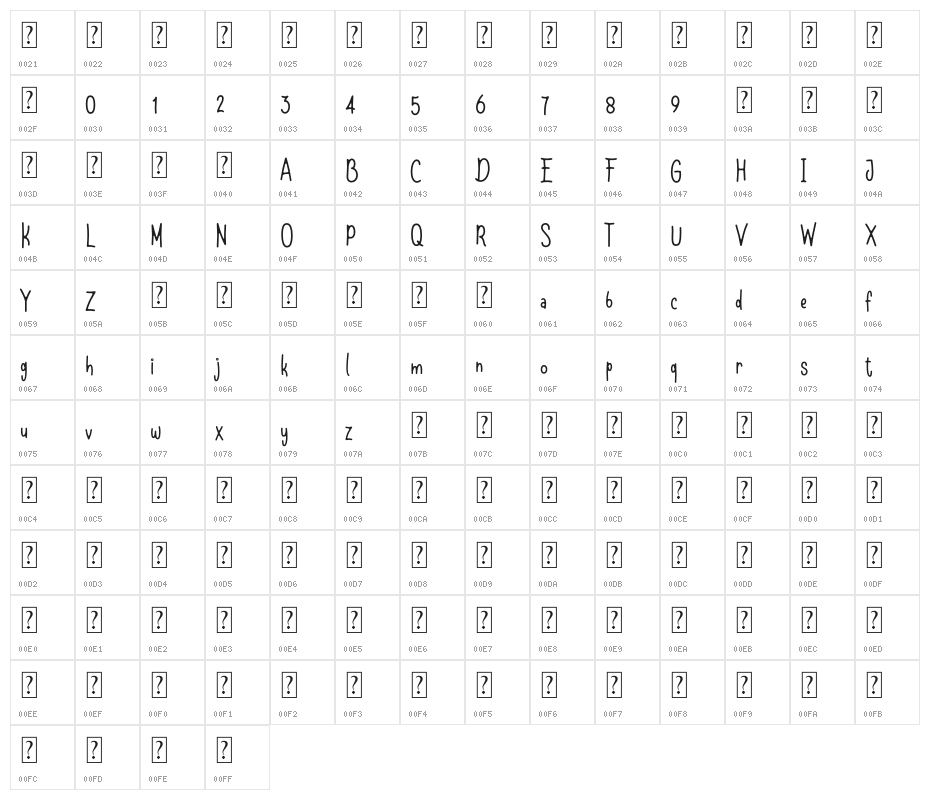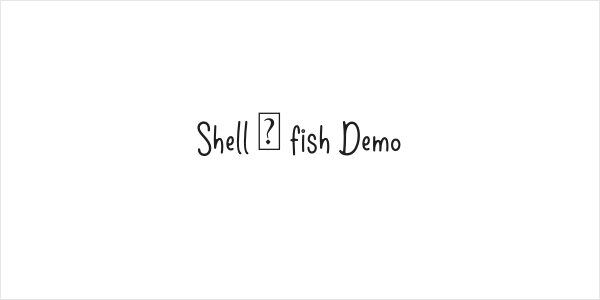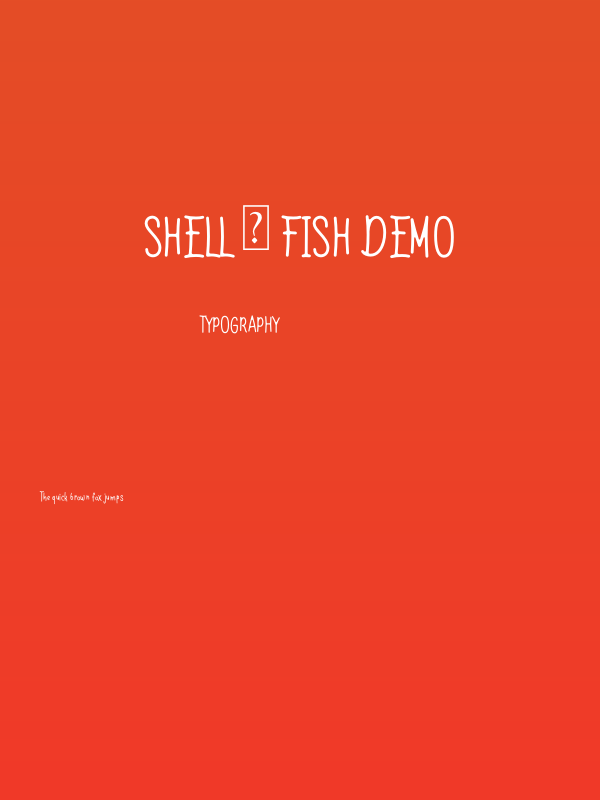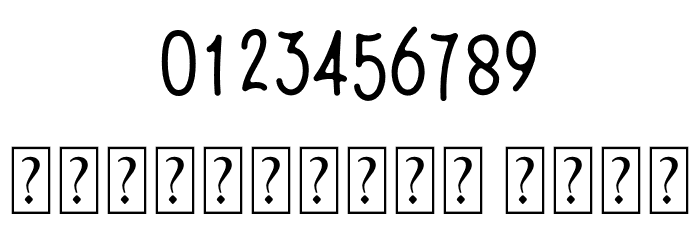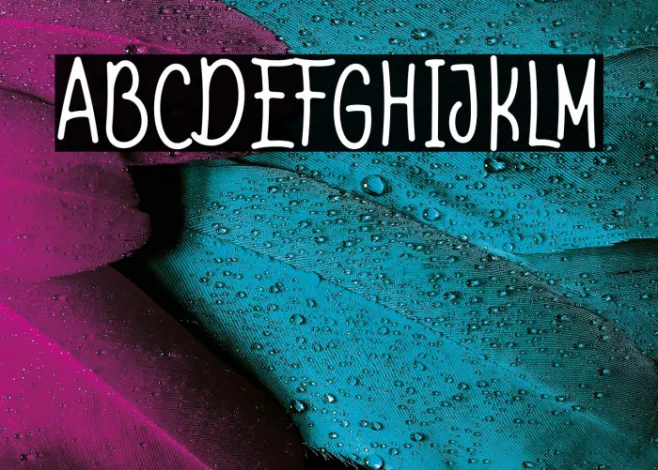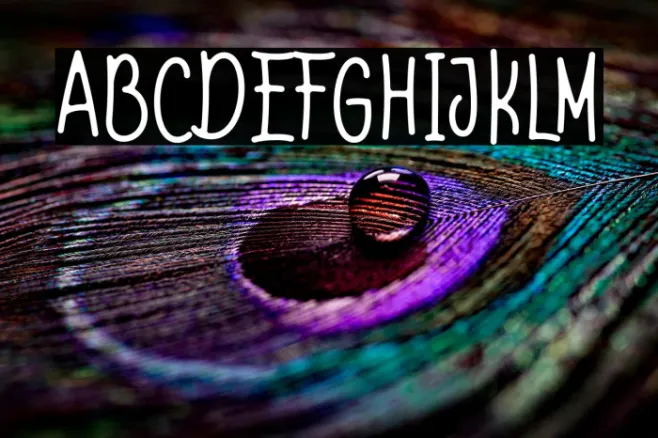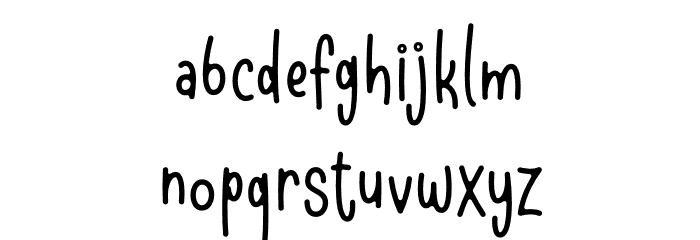
Shell & fish Demo Font
Shell & fish Demo Description
This playful and quirky font features a handwritten style with a casual and friendly appearance. The letters are slightly irregular, giving it a personal touch that mimics natural handwriting. The strokes are smooth and rounded, with a consistent thickness throughout, which adds to its approachable feel. The font maintains a good balance between readability and style, making it suitable for informal and creative projects. The numbers and special characters are designed to match the overall aesthetic, ensuring a cohesive look across all text elements.
| Proposed Projects | Ideal for greeting cards, children's books, casual branding, and social media graphics. |